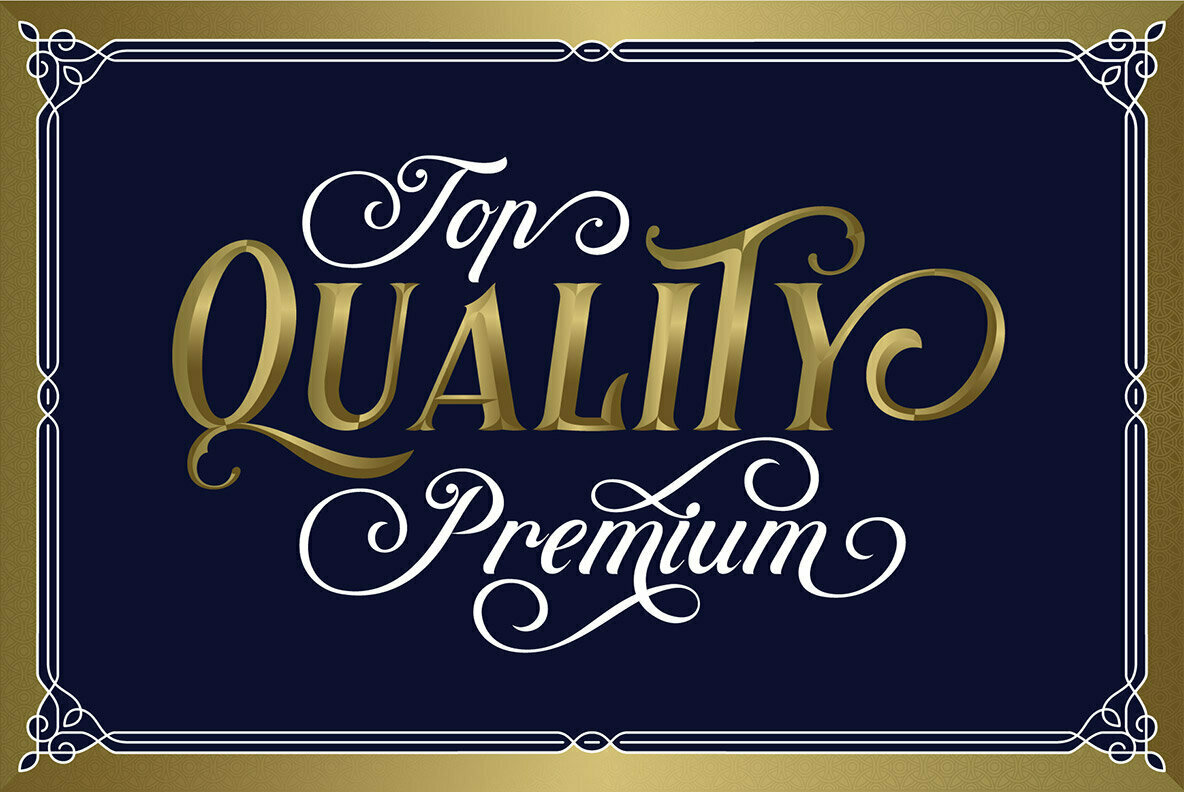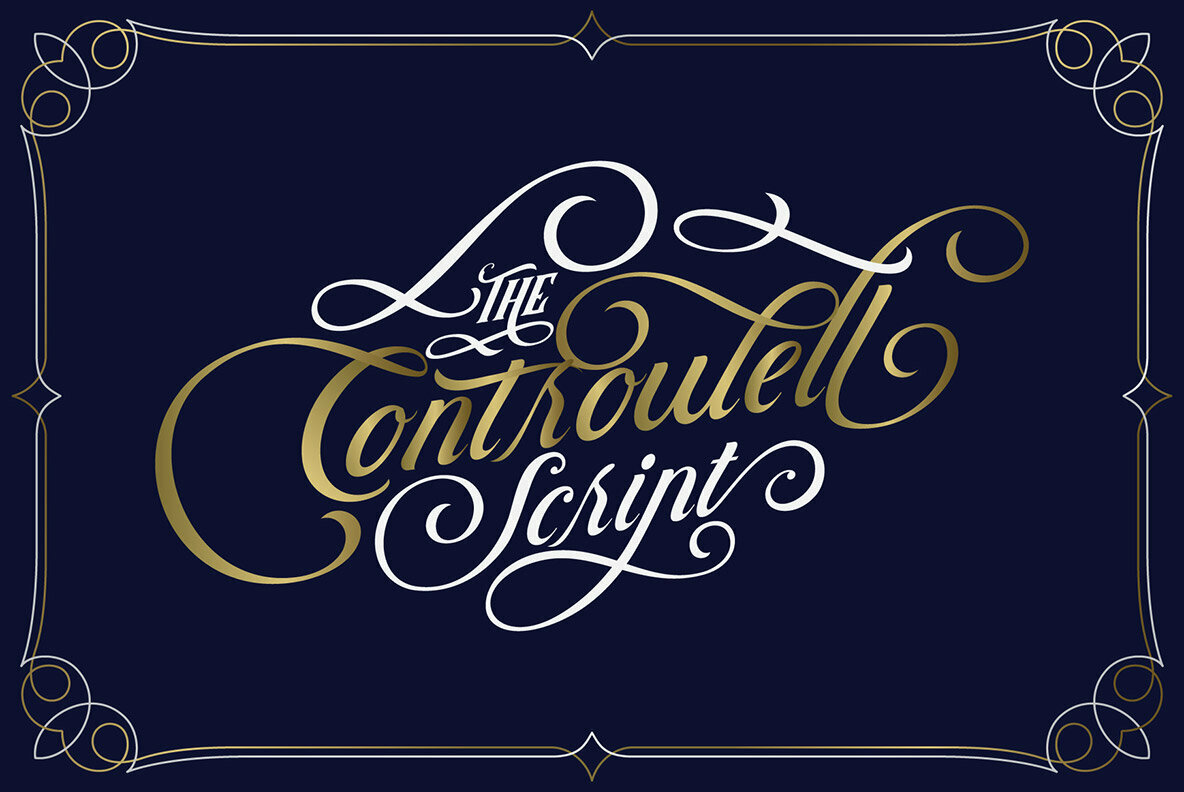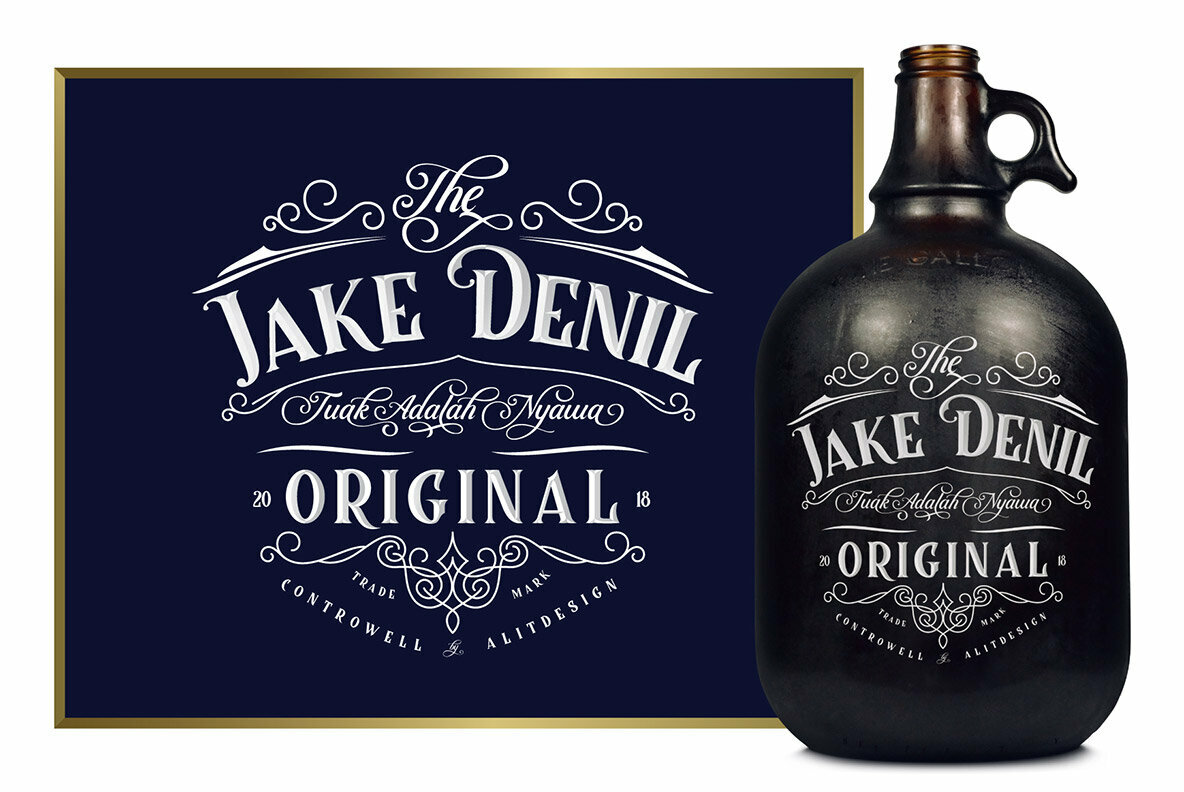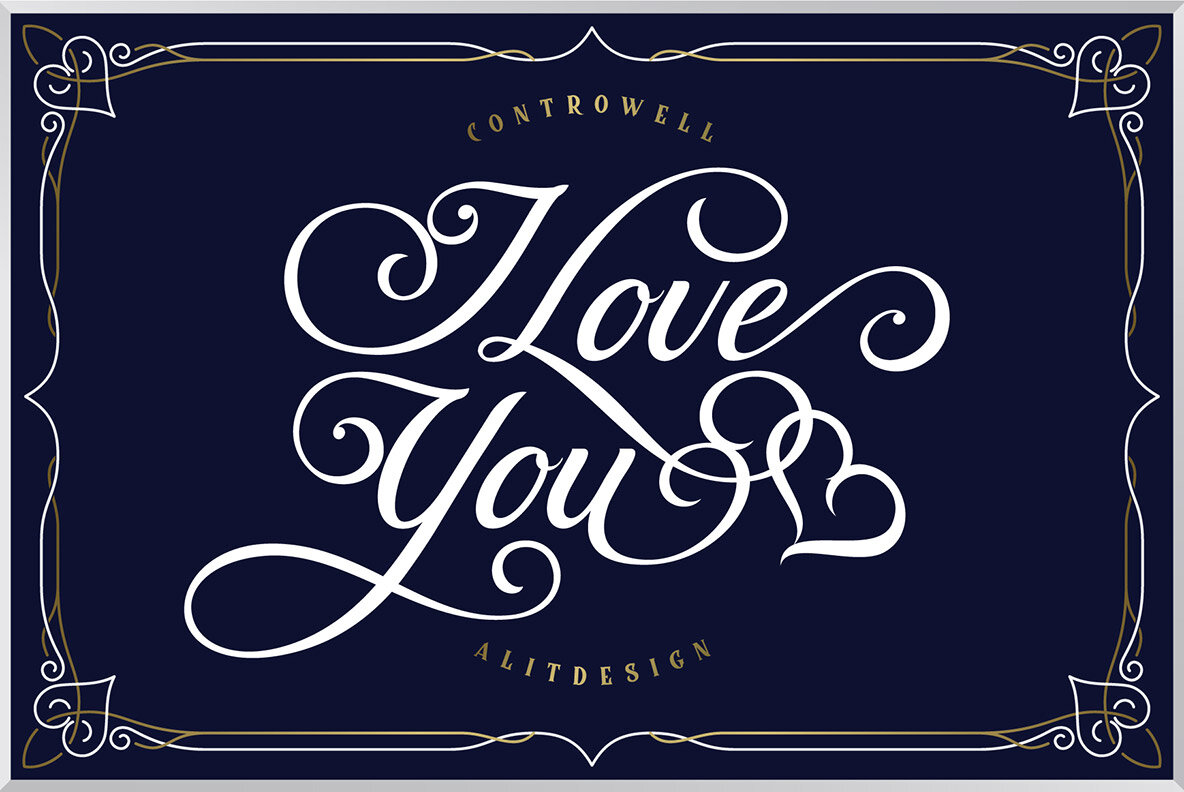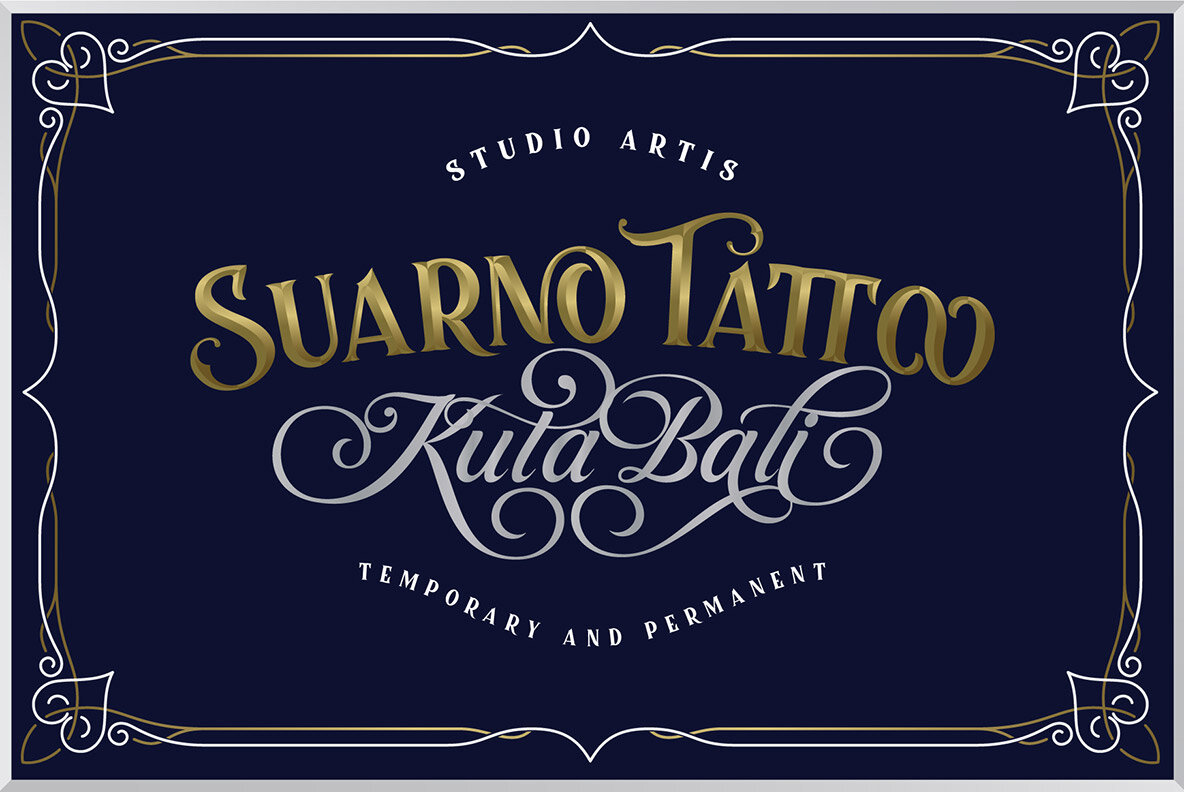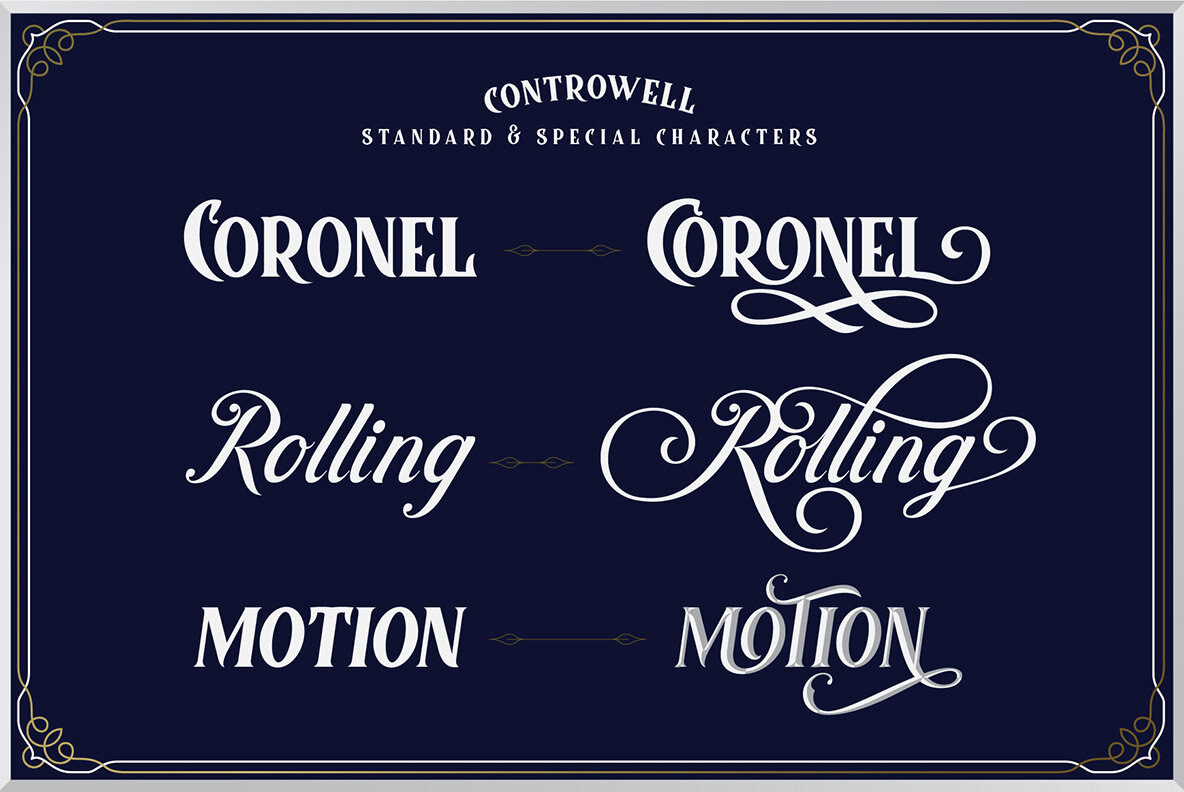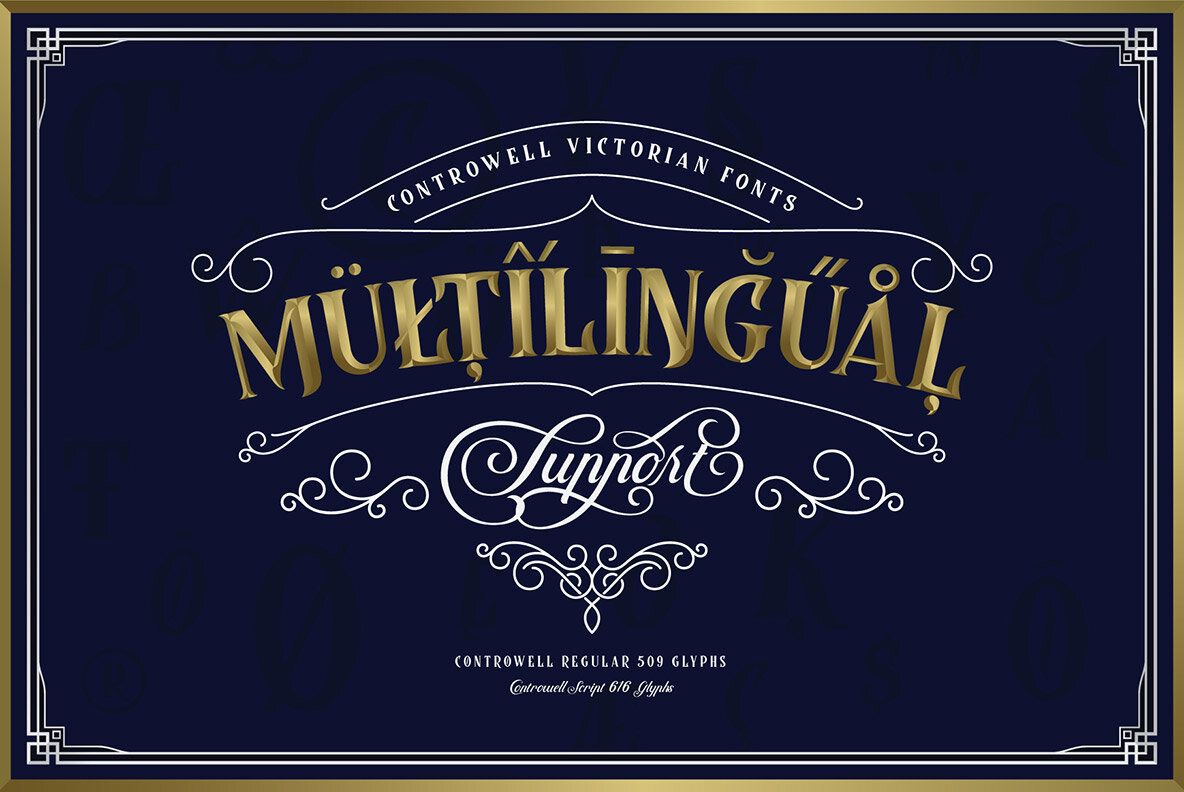
Controwell Victorian Typeface Font
Visiting the end of 2018, we launched "Controwell Victorian Typeface" which adheres to Serif and Script style. Controwell Serif Regular has 2 layers that give a cool metal effect. Besides that, there are many alternative character choices that suit your taste. This charming Controwell Script is very well suited combined with Controwell Serif Regular. the elegant and unique impression looks very hard. just like the serif font, this script also has many alternative character choices, up to "SS10" and 600 more glyphs.
You create designs with modern Victorian themes or classically themed themes that are suitable for collecting Controwell Victorian Typeface, in addition to many choices of your character is also very easy to use. just choose and change some characters, the design that you design is ready to be printed or published on social media.
This font is very suitable for logotype design, packaging design, beer design, vodka, whiskey label, poster design, victorian book cover, and more designs.
Besides that, you also get a bonus vector pack that you can use as a supporting element in making your design.